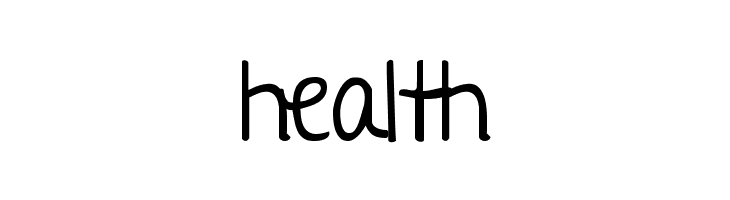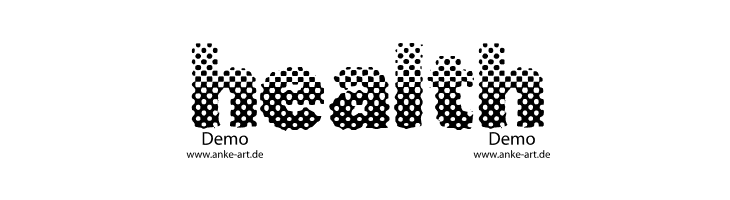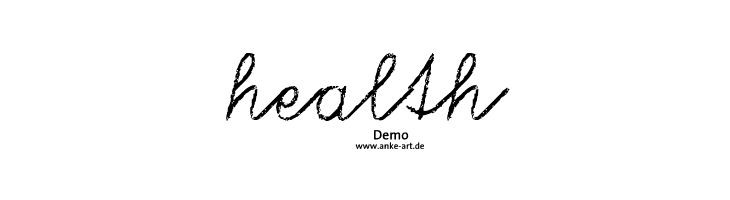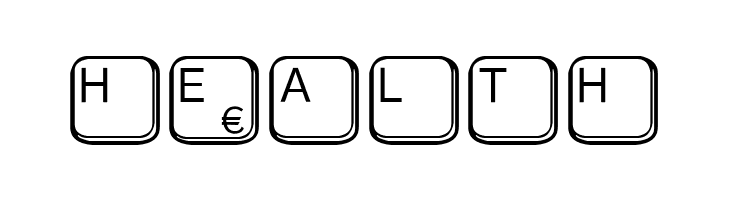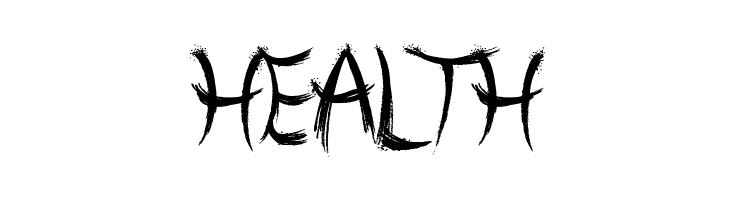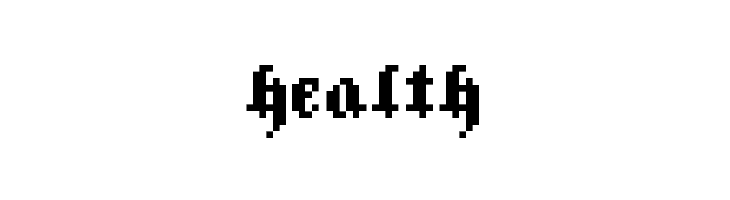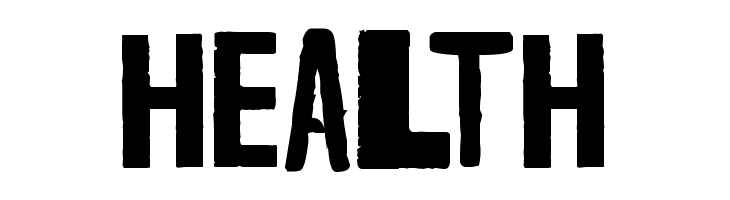
A decorative, dagger-inspired font with a gothic and medieval aesthetic.
Ornate heart and floral decorative pattern.
A decorative font with characters inside heart-shaped floral designs.
A bold, decorative font with star and lightning motifs.
A playful font with letters on tilted notebook pages, featuring bold, slanted characters.
A bold, rounded font with a futuristic and playful style.
A geometric, patterned font with characters enclosed in squares.
A bold, playful font with a double outline and rounded characters.
A bold, rounded geometric font with high visibility.
A bold, star-patterned decorative font ideal for festive designs.
A playful, handwritten font with thin, irregular strokes and a casual vibe.
A playful, blocky font with enclosed characters for a decorative look.
A playful, blocky font with square, uniform shapes and bold lines.
A playful block-style font ideal for creative and youthful projects.
A playful, vintage block-style font with bold, chunky letterforms.
A playful, blocky font with each character enclosed in a square.
A playful, bold display font with a whimsical, hand-drawn style.
A playful, hand-drawn font with a stamp-like effect and irregular edges.
A playful, whimsical handwritten font with uneven strokes and a casual appearance.
A playful, heart-adorned font with a hand-drawn, whimsical style.
A bold, expressive script font with flowing, cursive letterforms.
A modern serif font with playful serifs and dynamic character forms.
A bold, geometric font with a pixelated, digital appearance.
A bold, geometric font with a digital, pixelated design.